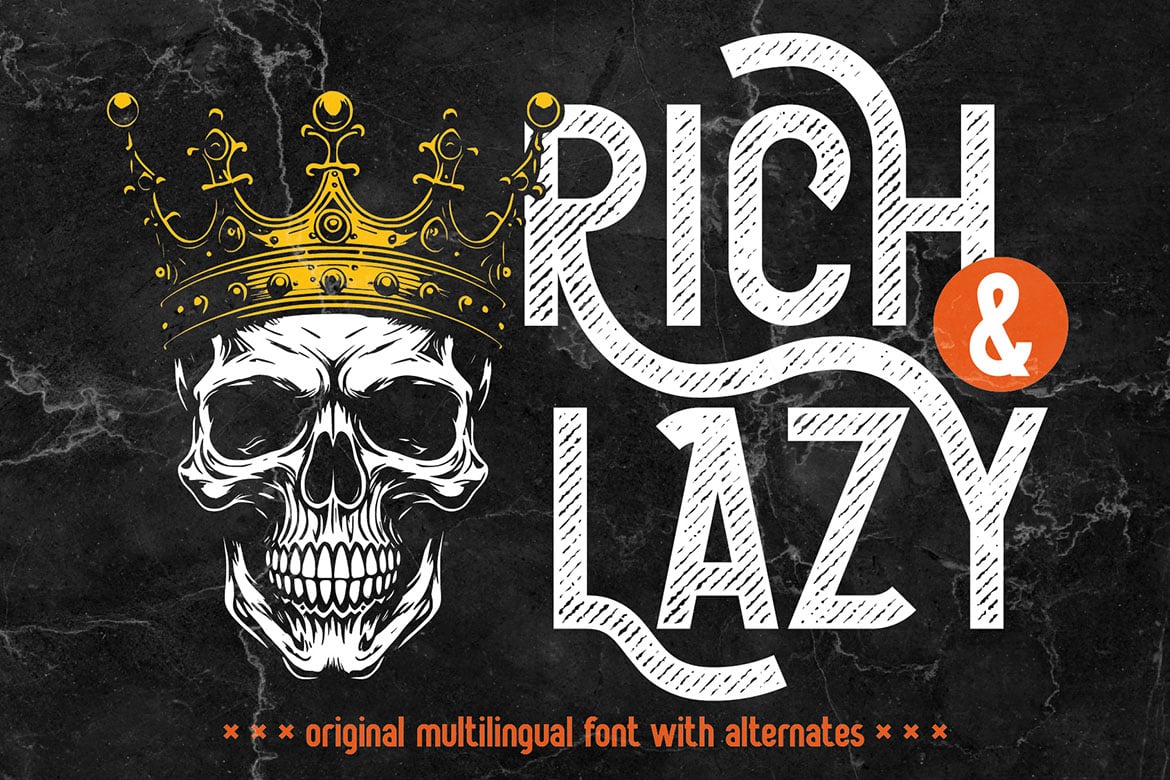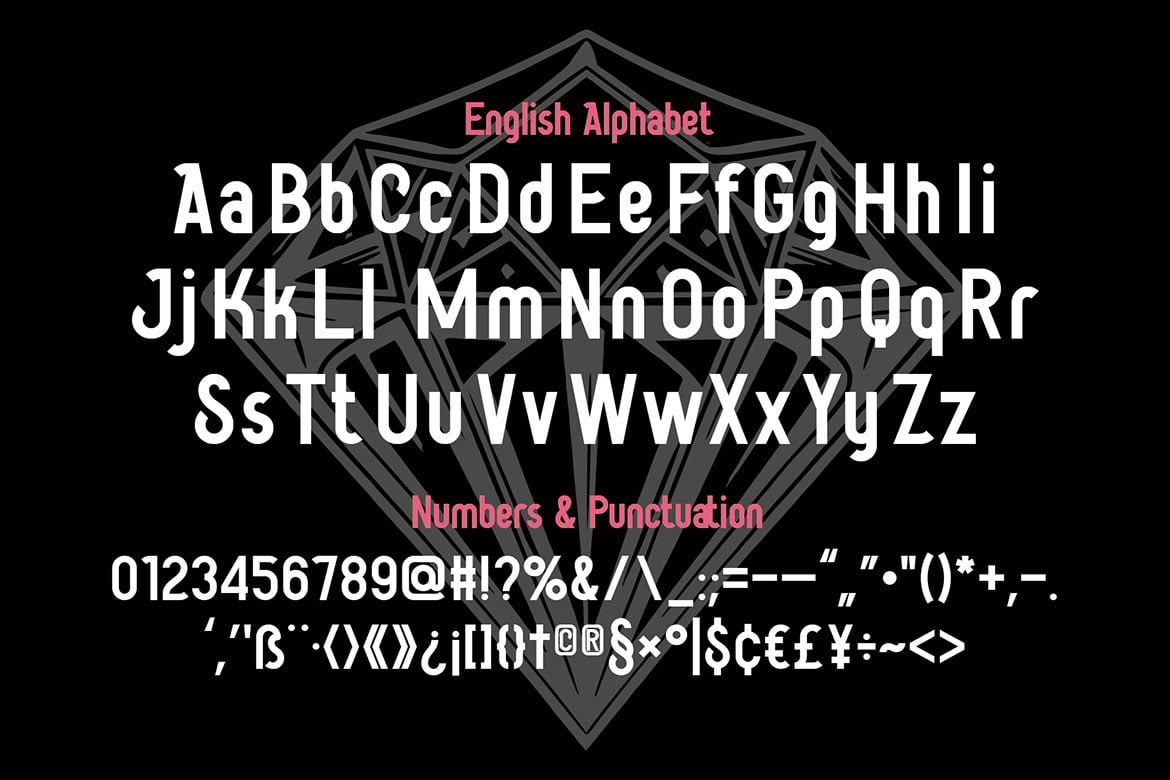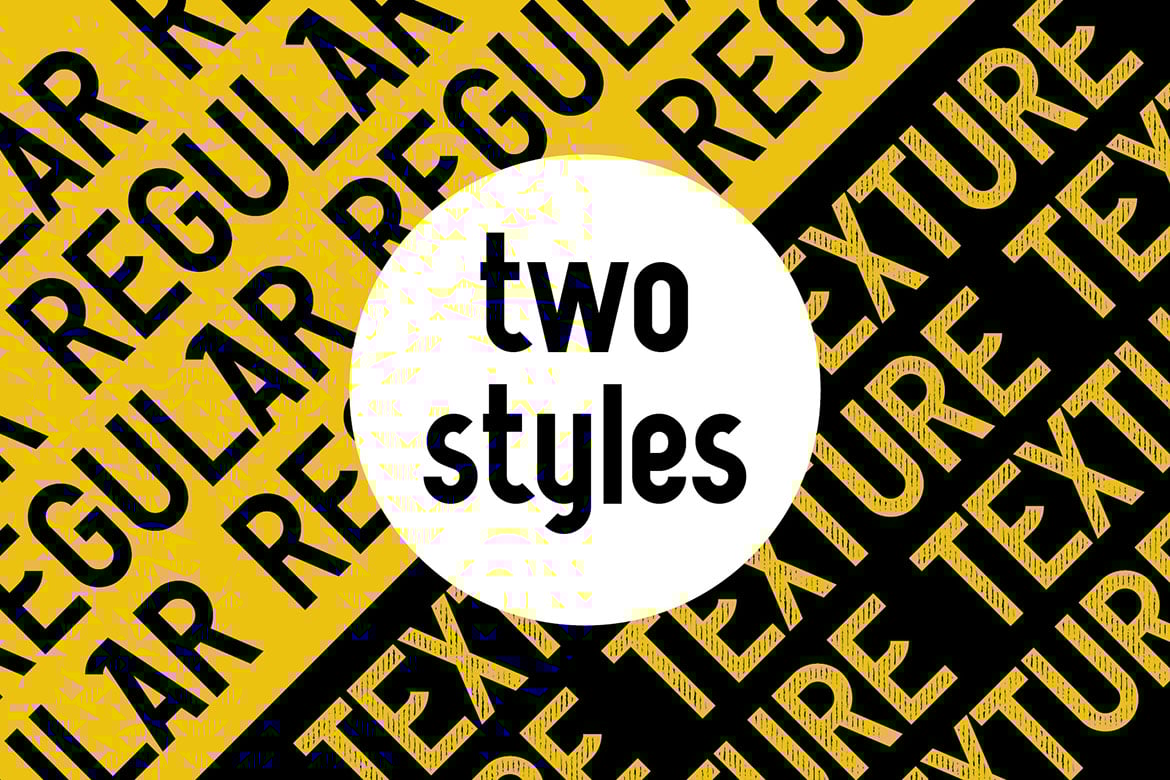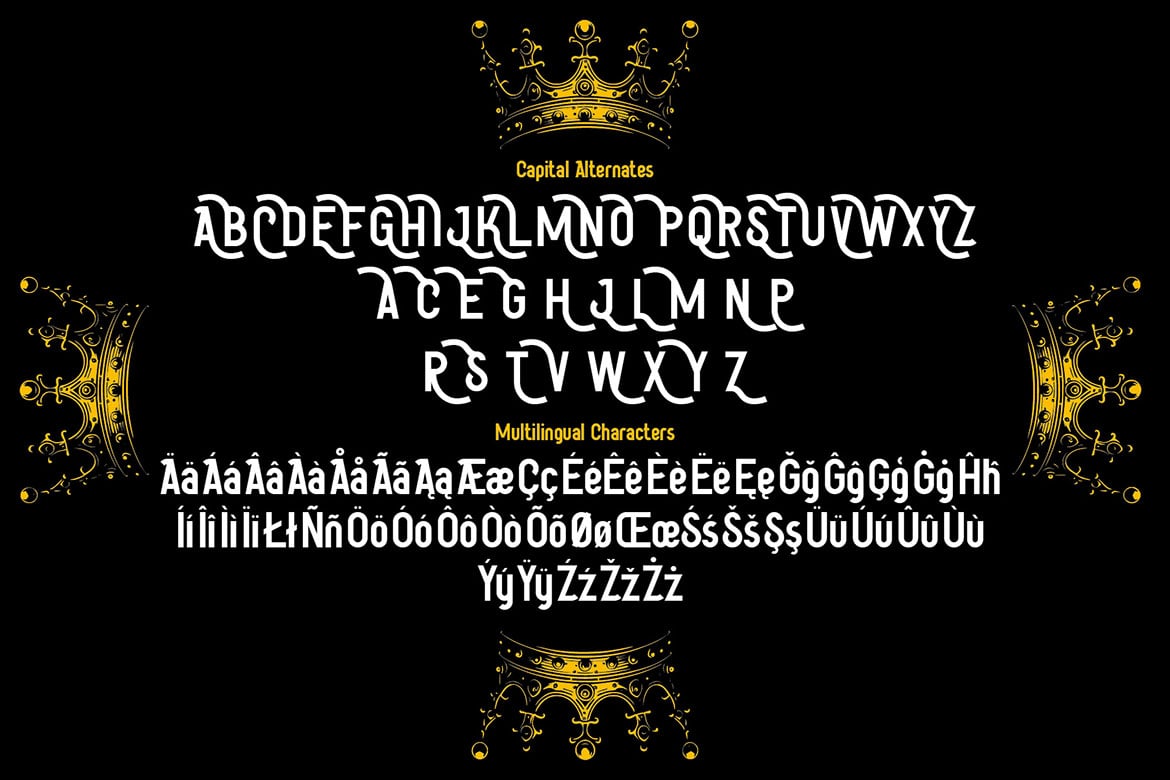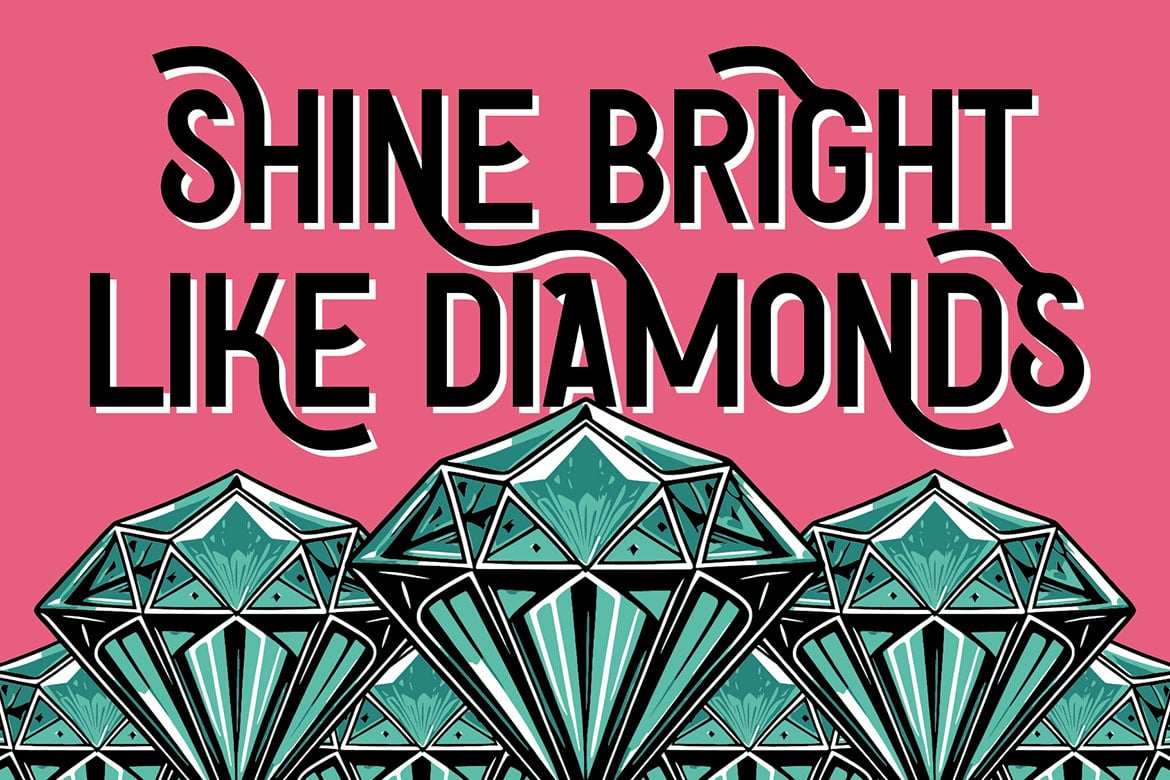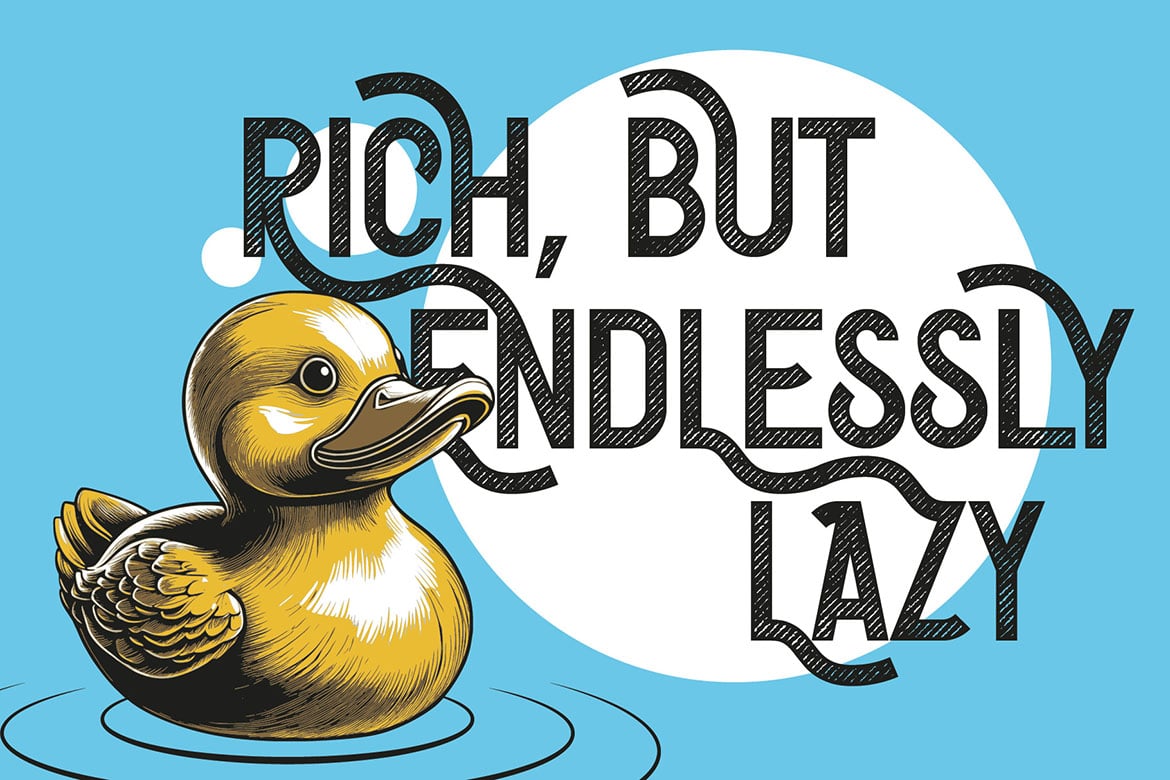
Rich And Lazy Punk Font
Unique, crazy, punk, urban, street style, monogram & stylish label sans serif font. Comes with multilingual support and alternates + textured font version – great for your new logo, monogram or branding project.
- 2 font versions – regular & textured
- Multilingual support and alternates
- Great for your new logo, monogram or branding project